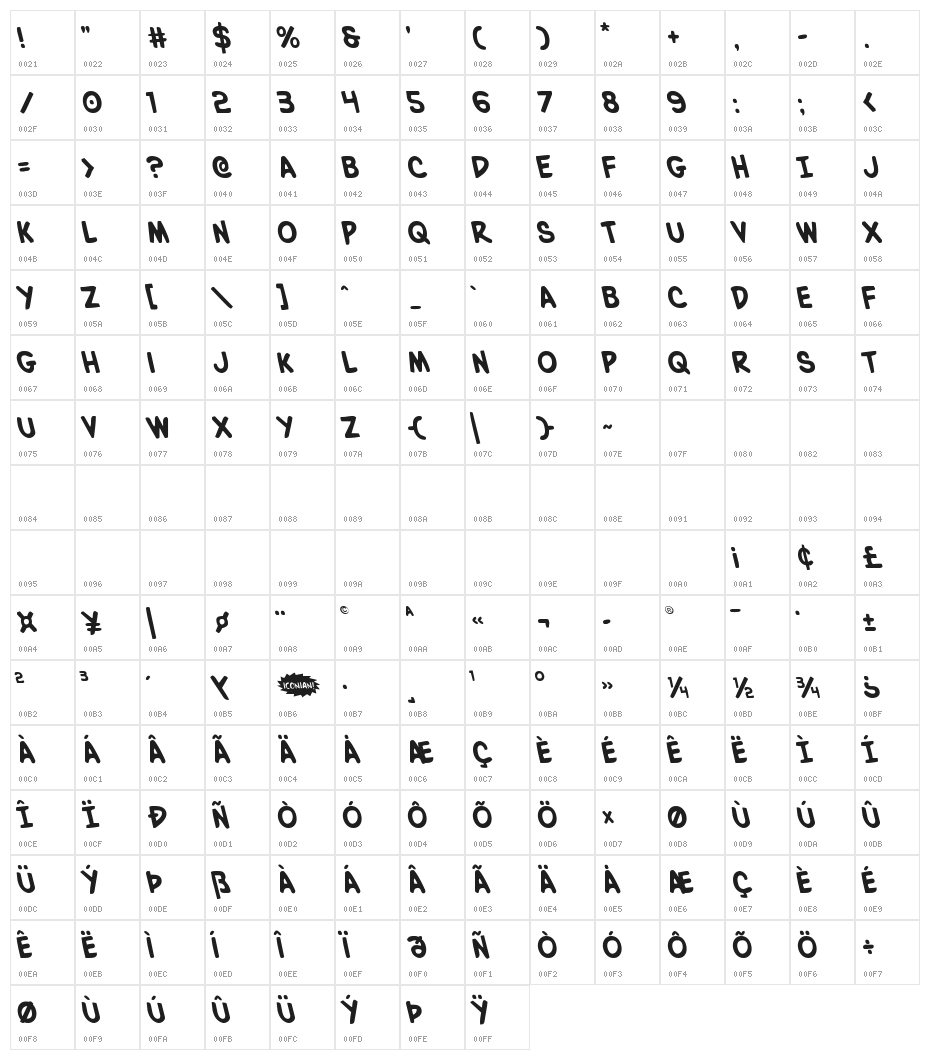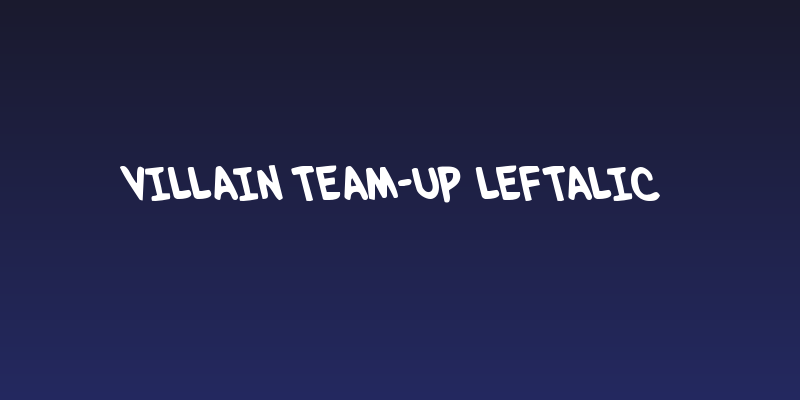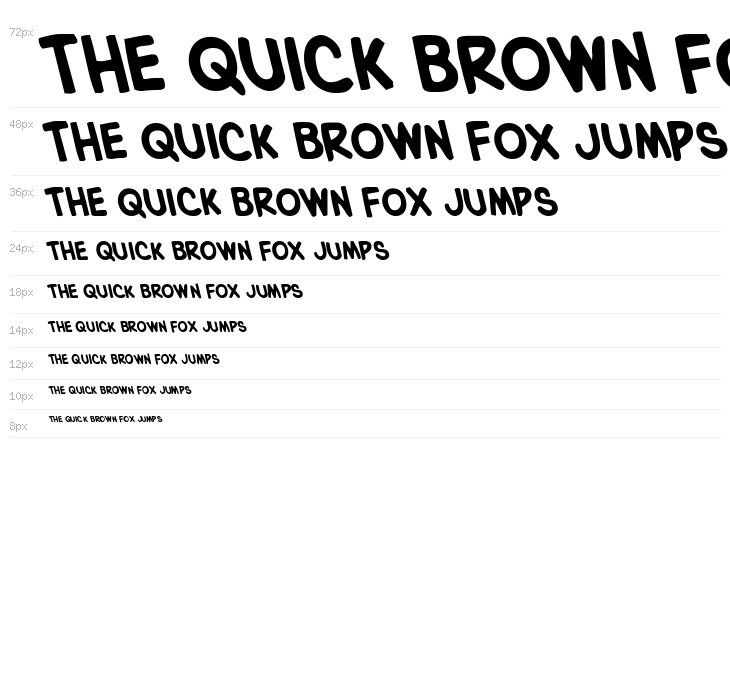
Villain Team-Up Leftalic Font
Villain Team-Up Leftalic Description
This font features a playful and bold style with a slightly slanted orientation, giving it a dynamic and energetic appearance. The characters are thick and rounded, contributing to a friendly and approachable feel. The uppercase and lowercase letters maintain a consistent weight, ensuring readability while adding a touch of whimsy. The numbers and special characters follow the same design principles, making them cohesive with the alphabet. The overall design is reminiscent of comic book lettering, making it suitable for projects that require a fun and informal tone.
| Overall Style | Playful, Comic |
| Proposed Projects | Ideal for comic books, children's books, playful branding, and casual event invitations. |